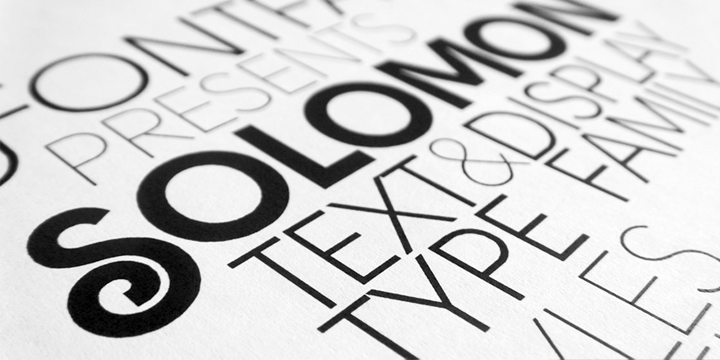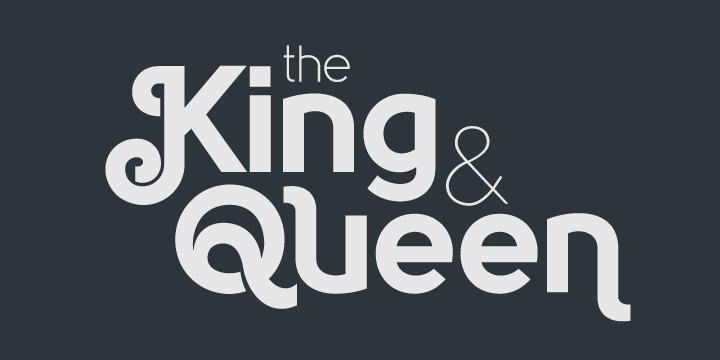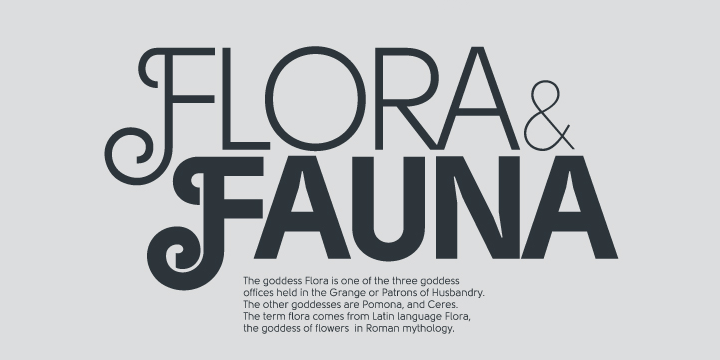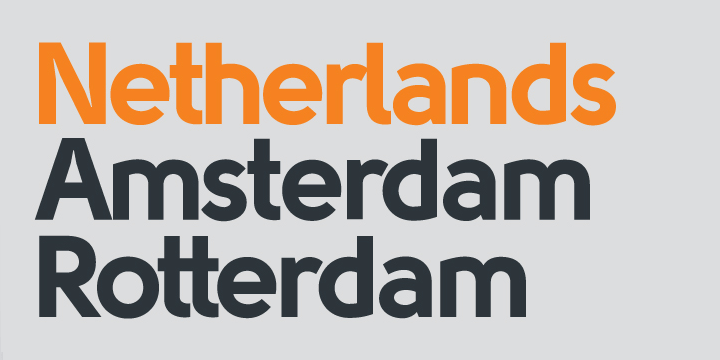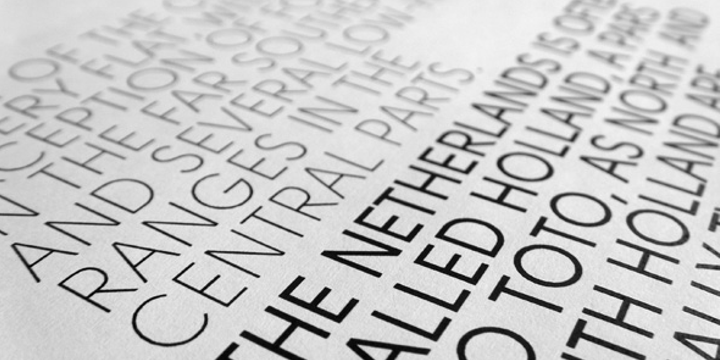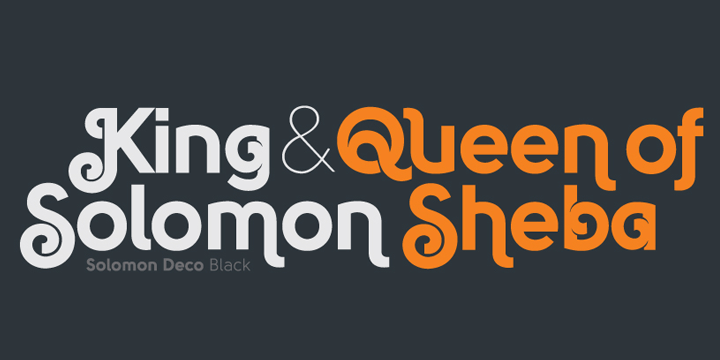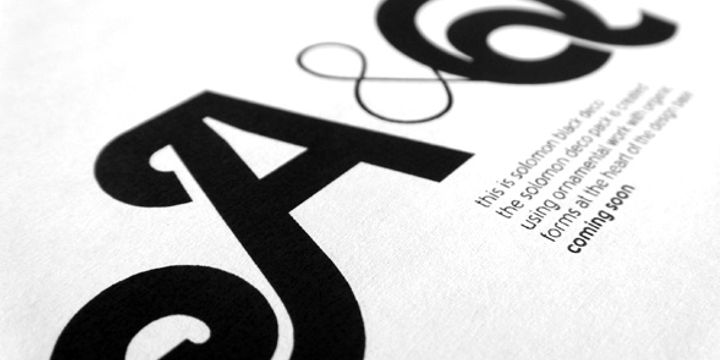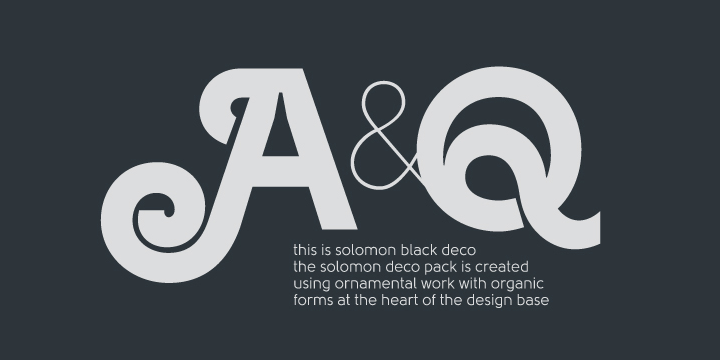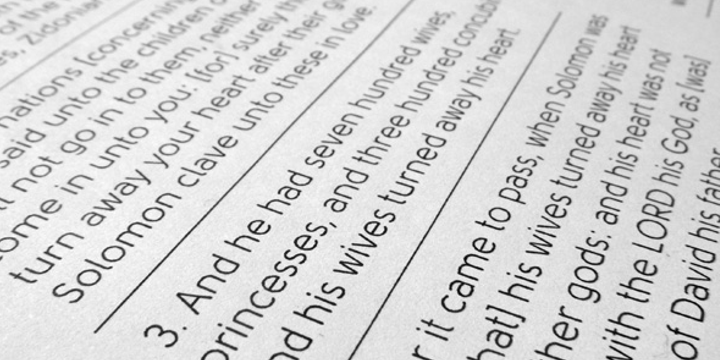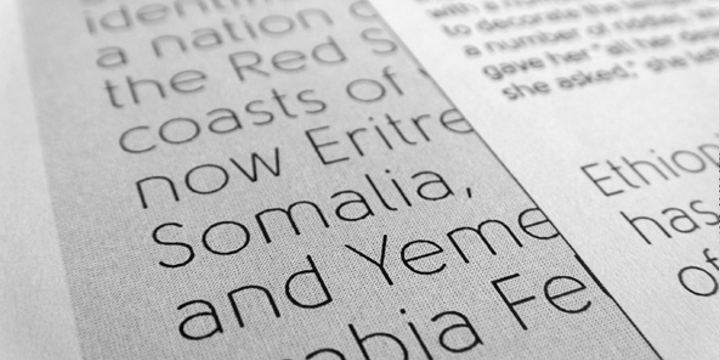
Solomon
Font Family by Fontfabric
The new Solomon type family includes 12 very unique design styles. These twelve designs are divided into two main style groups'text family and display (or decorative) family.
The Solomon text pack is characterized by excellent legibility, well-finished geometric designs, optimized kerning etc.
Solomon is most suitable for headlines of all sizes, as well as for text blocks that come in both maximum and minimum variations.
The Solomon deco pack is created using ornamental work with organic forms at the heart of the design base.
The use and combination of both groups - deco and text family, is highly recommended in order to attain maximum desired effects.